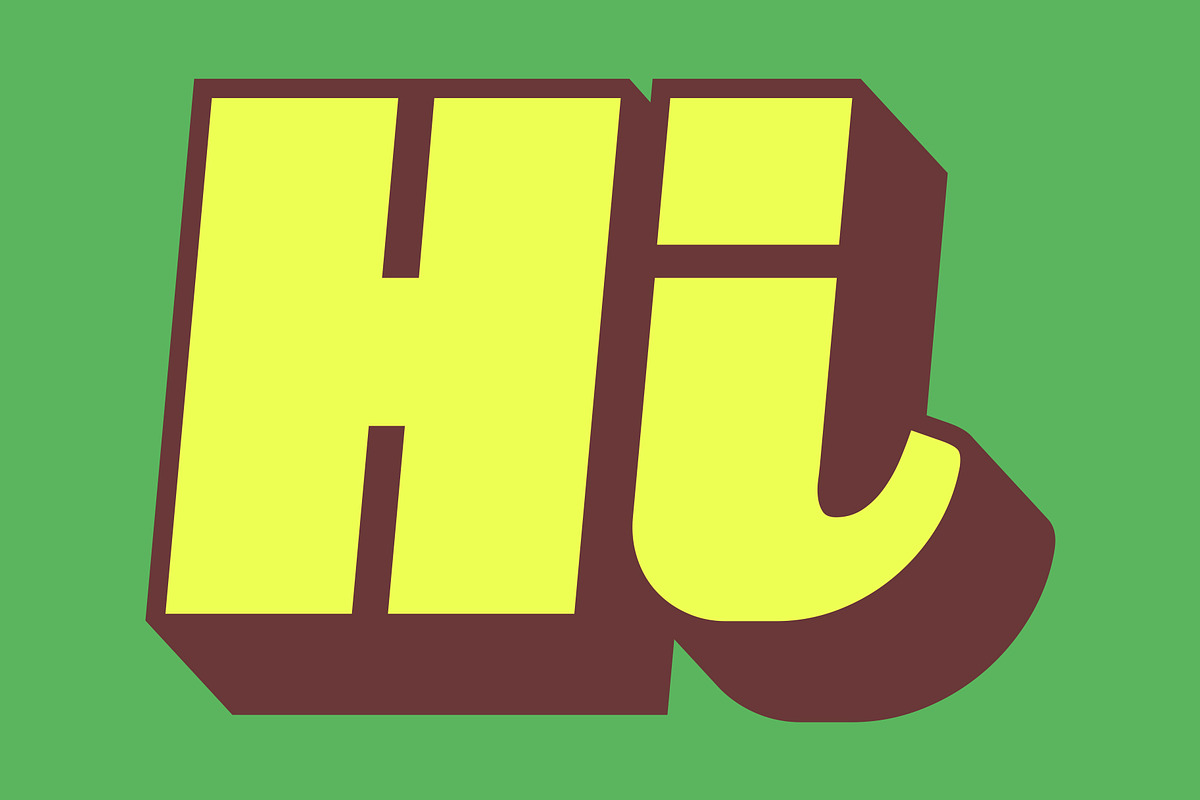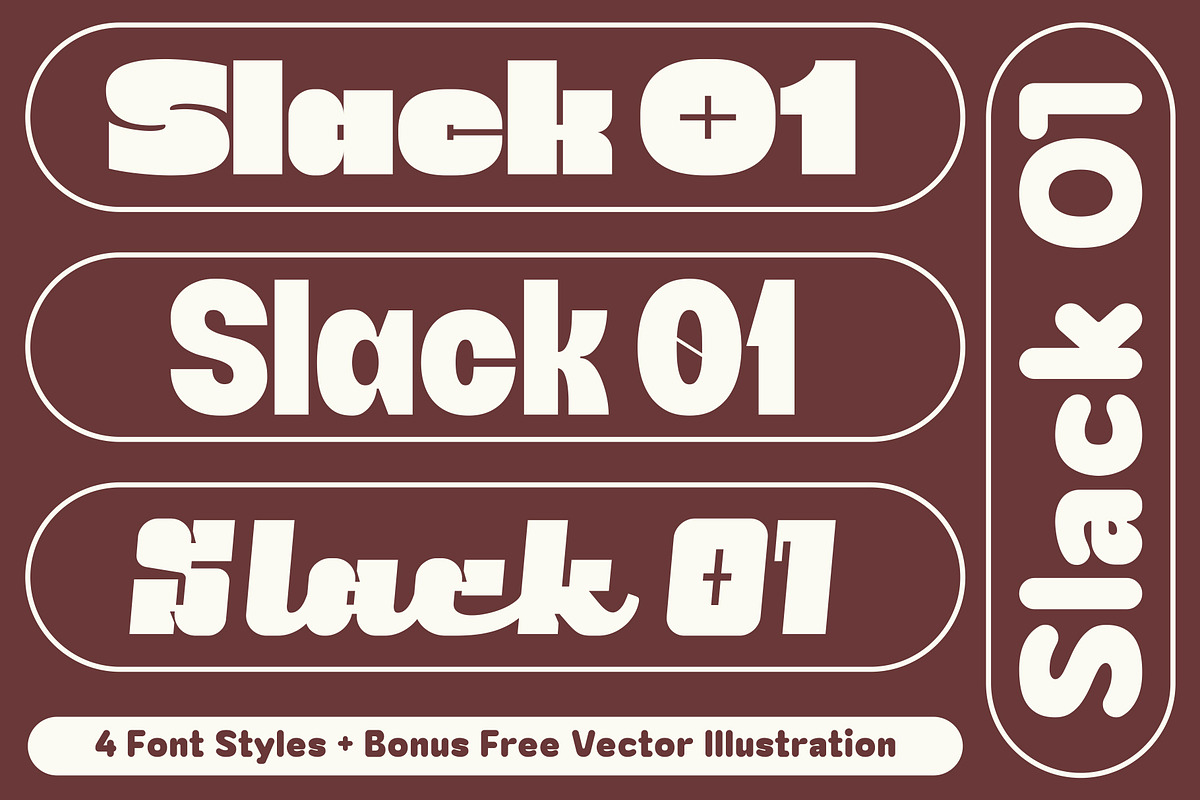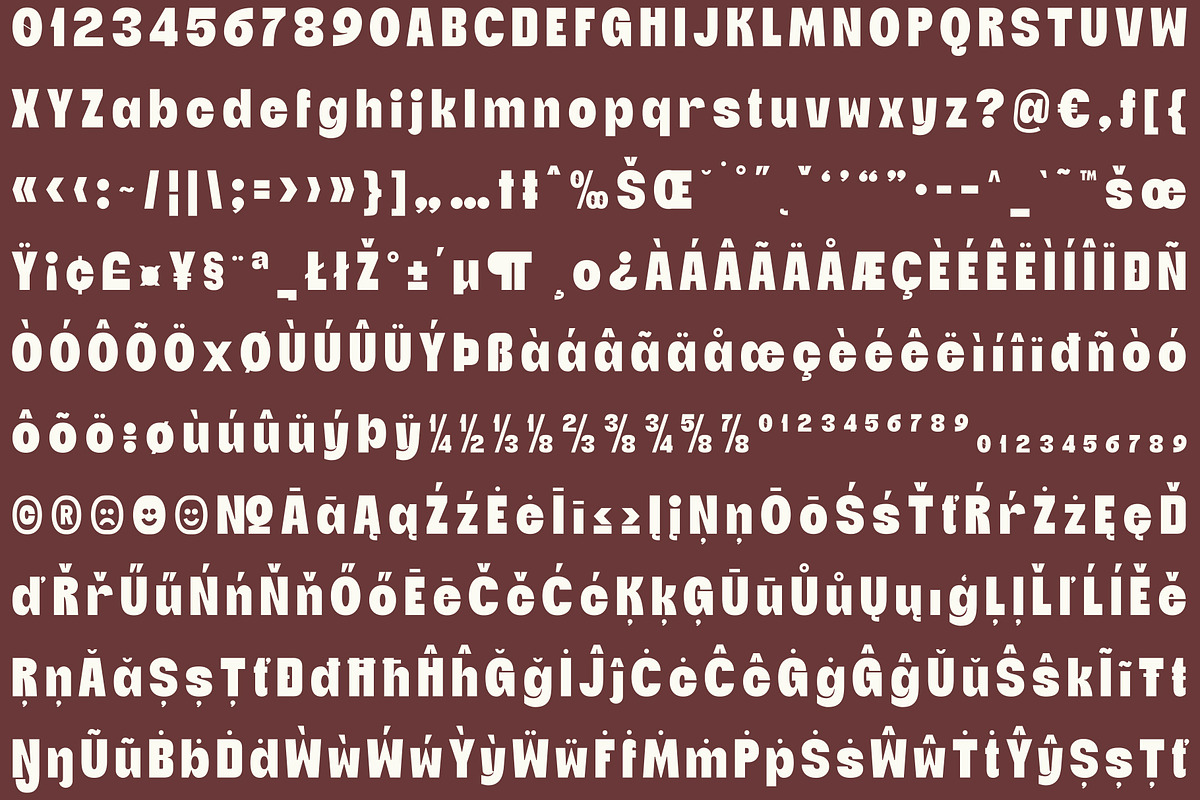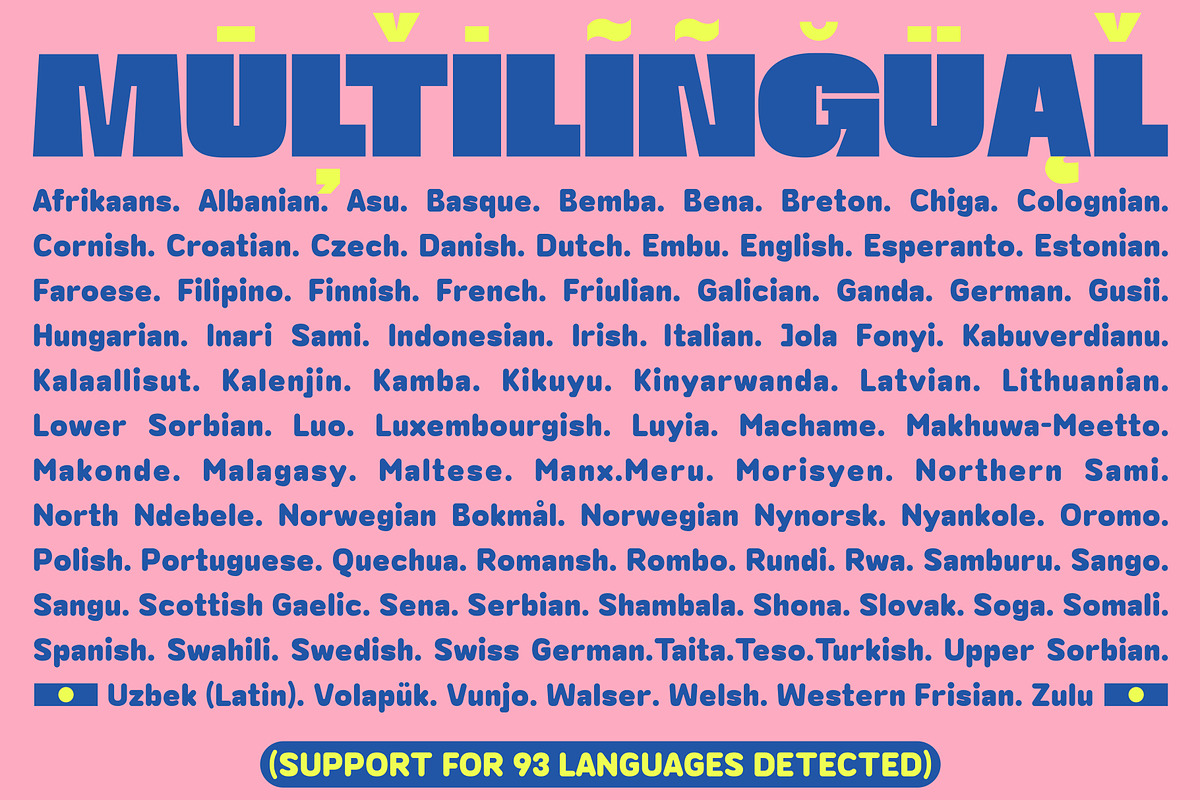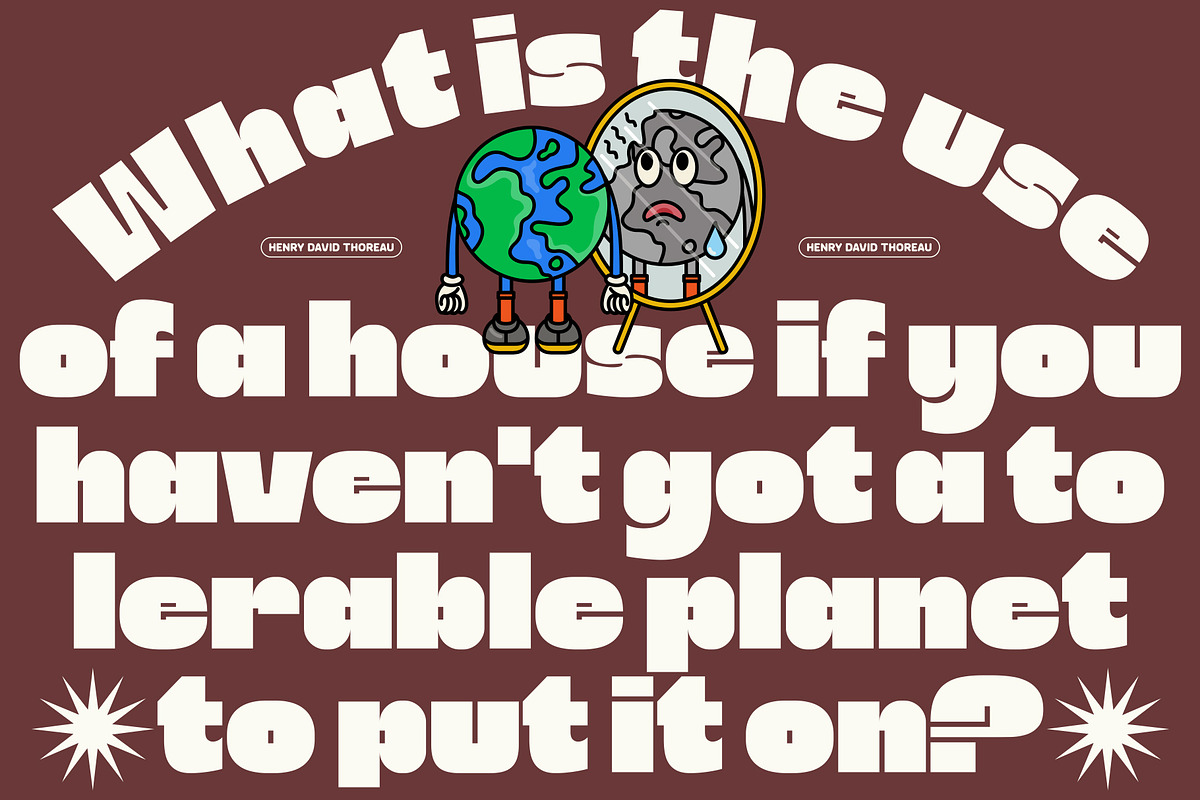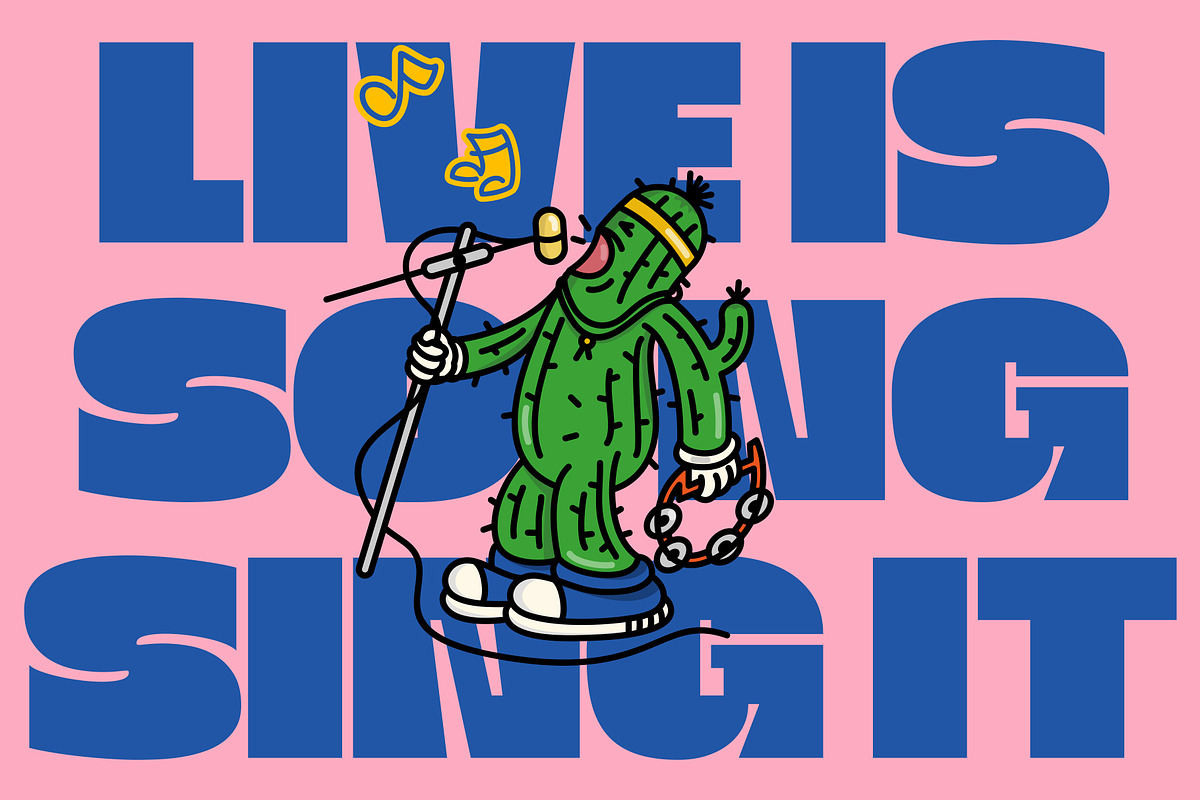
Slack 01 | Cheerful Sans Serif Font
Hello, Introducing our newest font Slack 01, Slack 01 has a character with a fun, happy, colorful, and very modern style, this is good news for those of you who are thinking of ideas and making something great, and Slack 01 is the answer for that all, with vector illustration support that you will get for free, so what are you waiting for, get Slack 01 right away